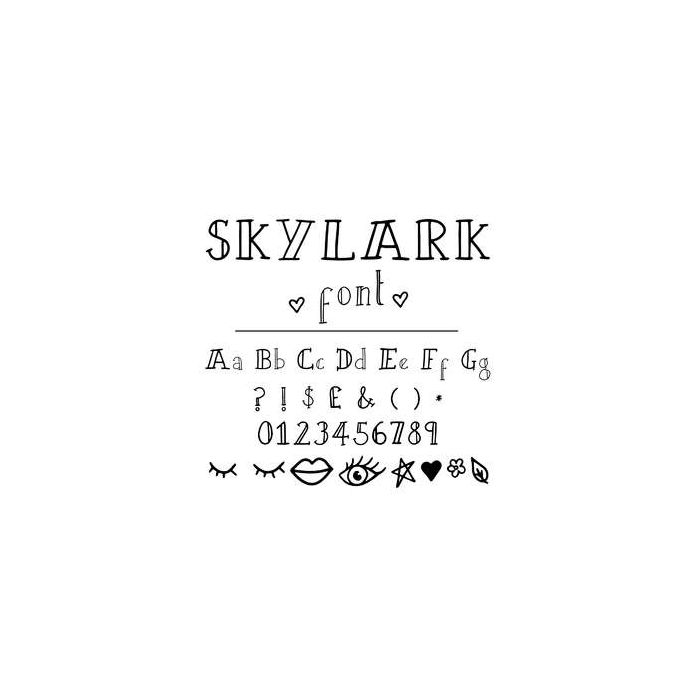
Skylark Font - with upper and lowercase alphabet, alternates, numbers, punctuation and hand drawn doodles. extras are all allocated to keys and available via the character / glyphs panel.